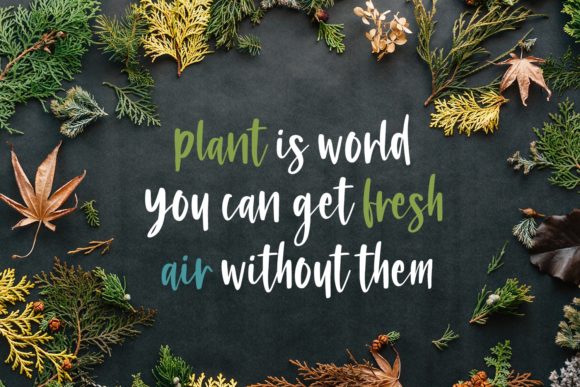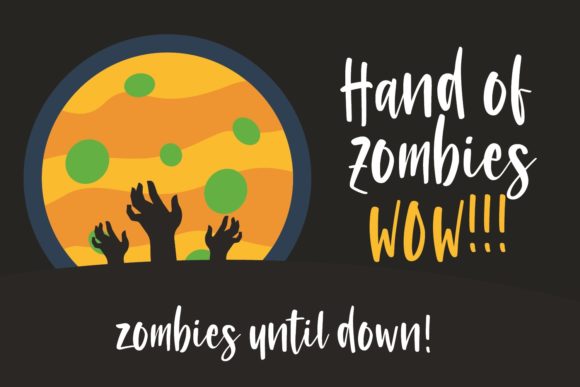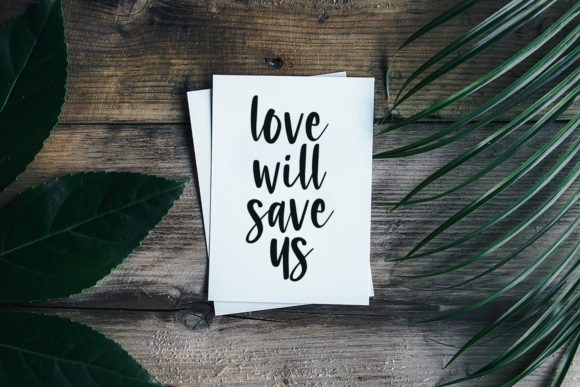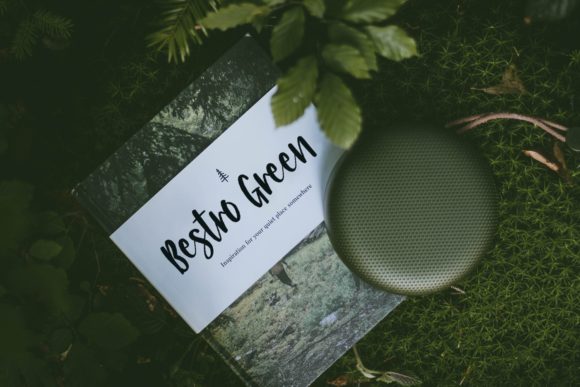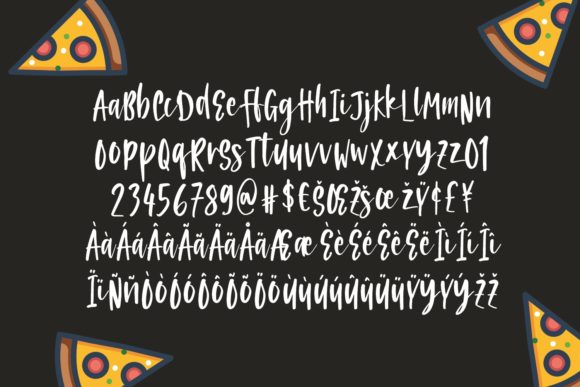
Pizza Travel Font
About Pizza Travel Font
Pizza Travel is a yummy script font. This cute and friendly font is perfect for a wide variety of projects. Get inspired with its amazing feel & look.